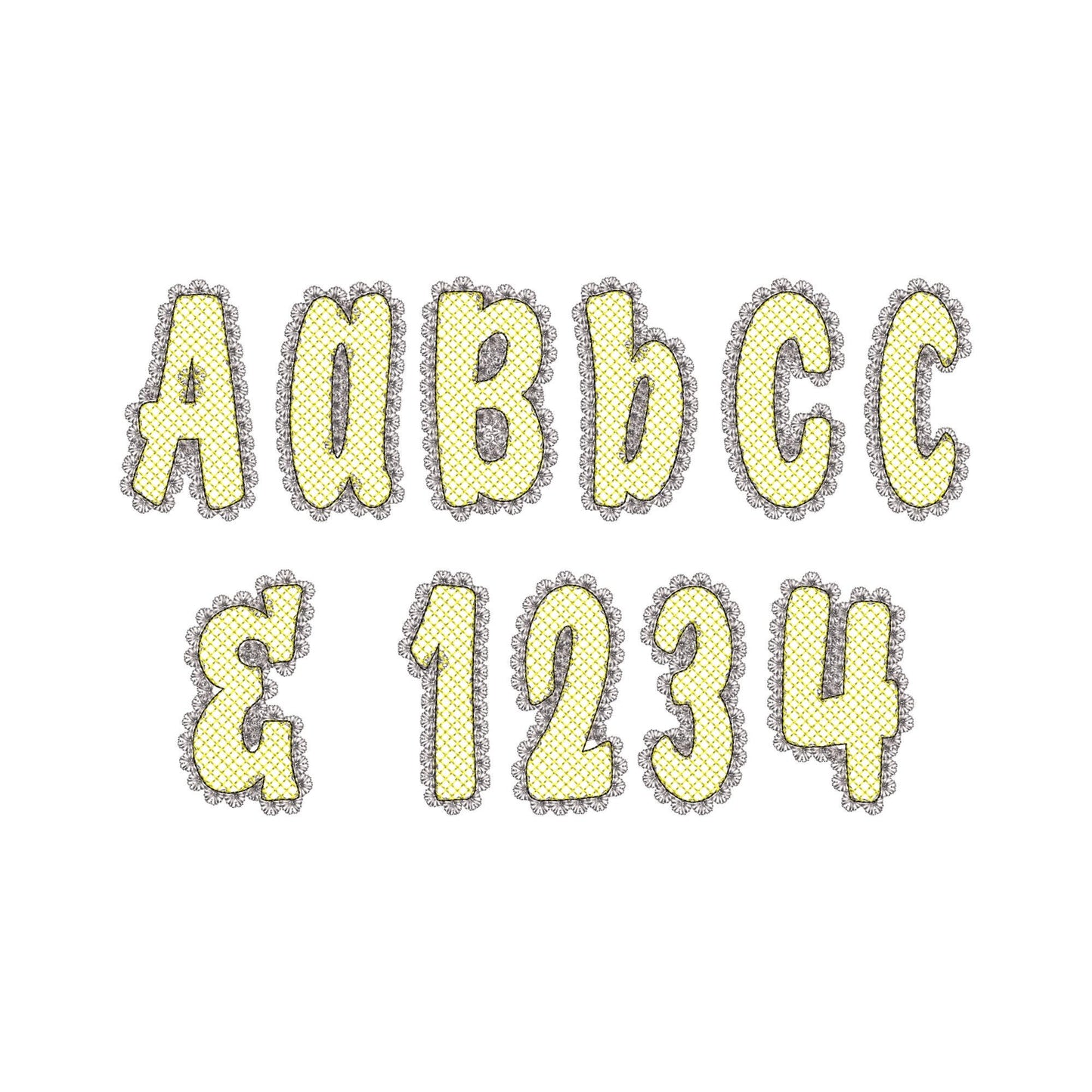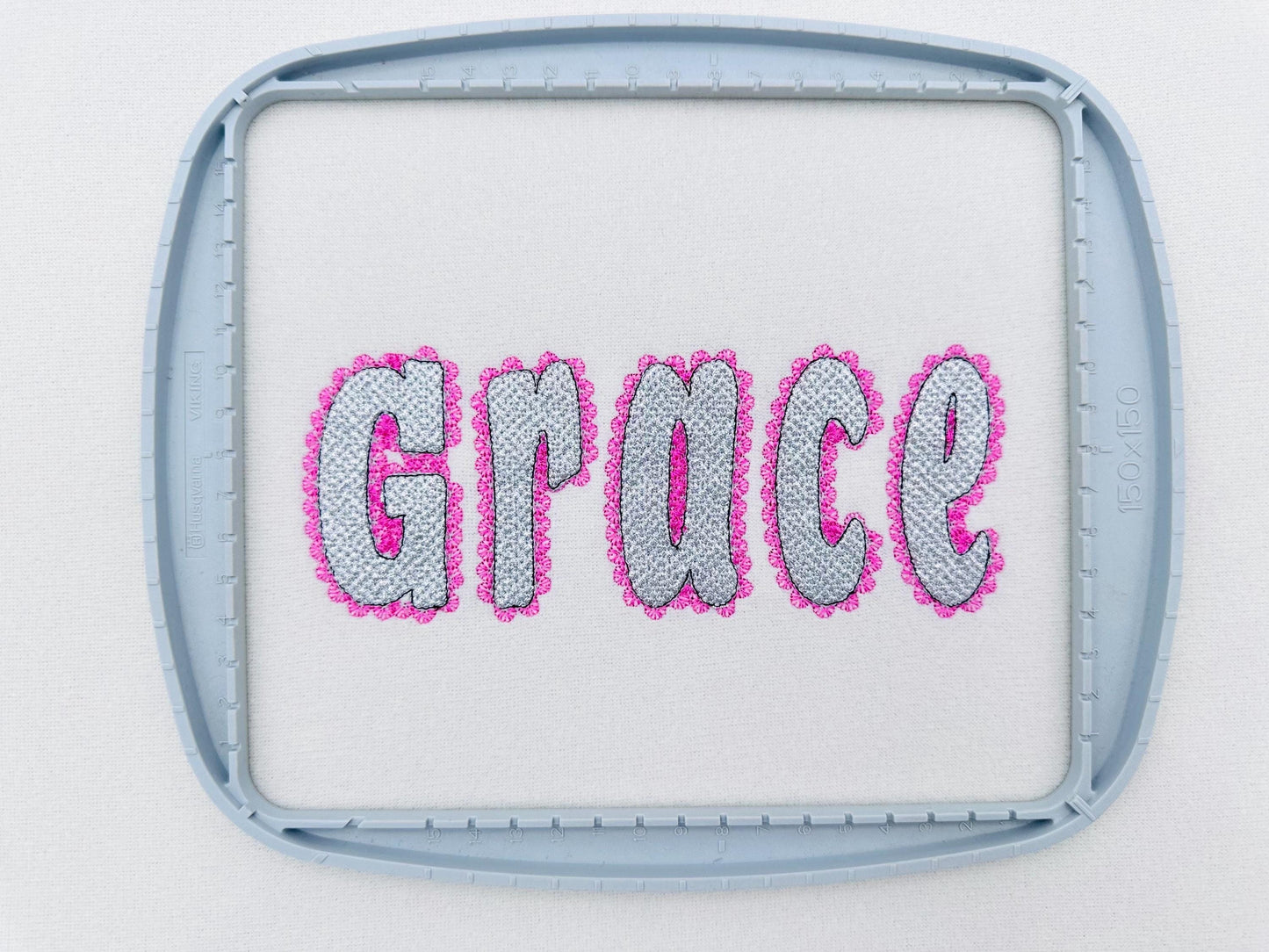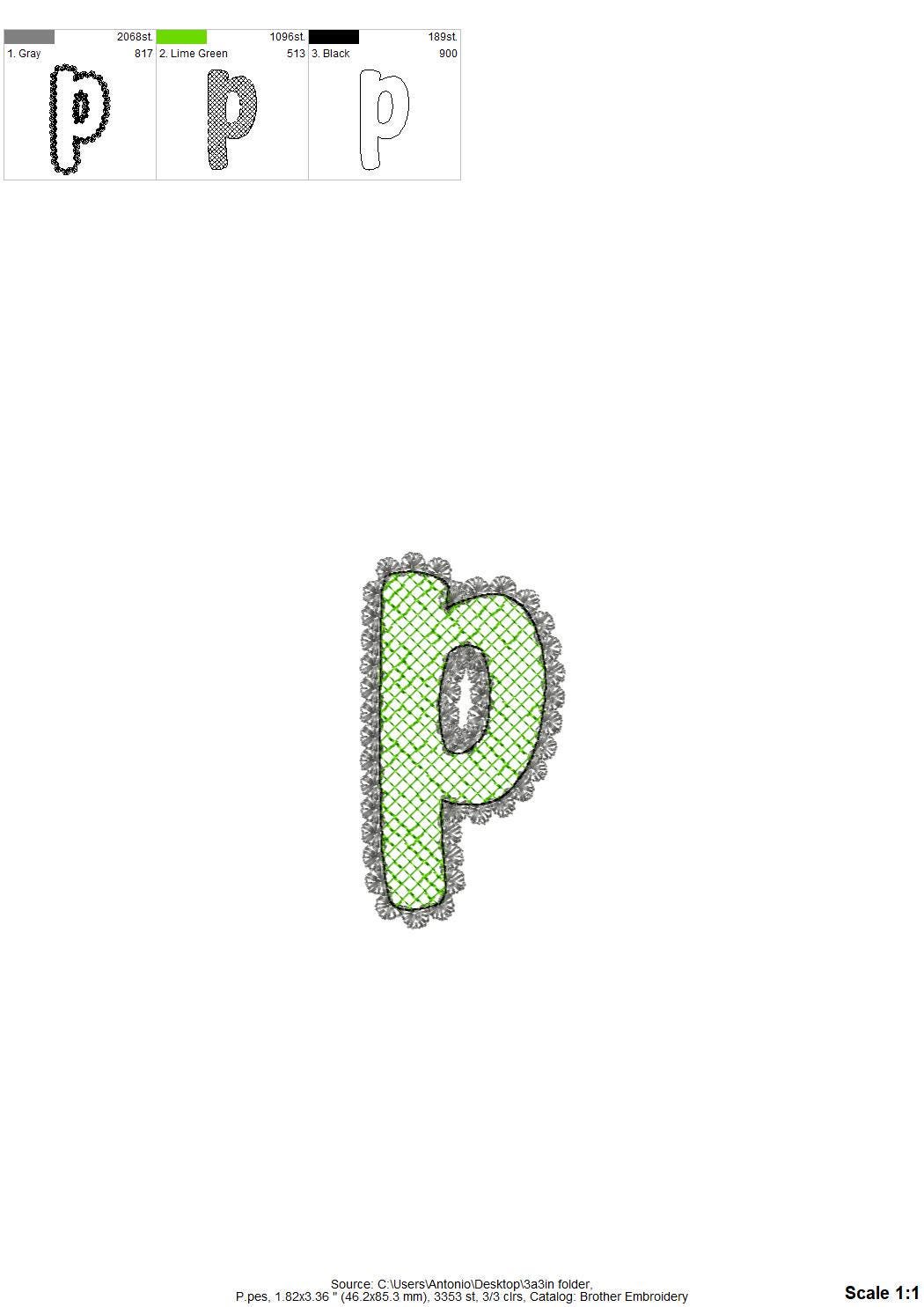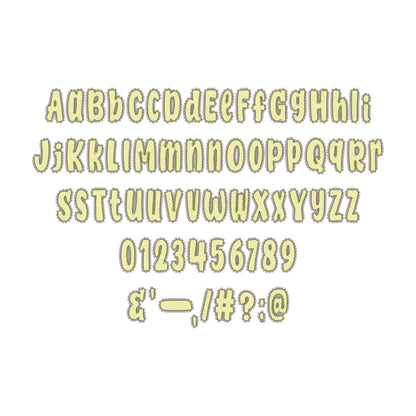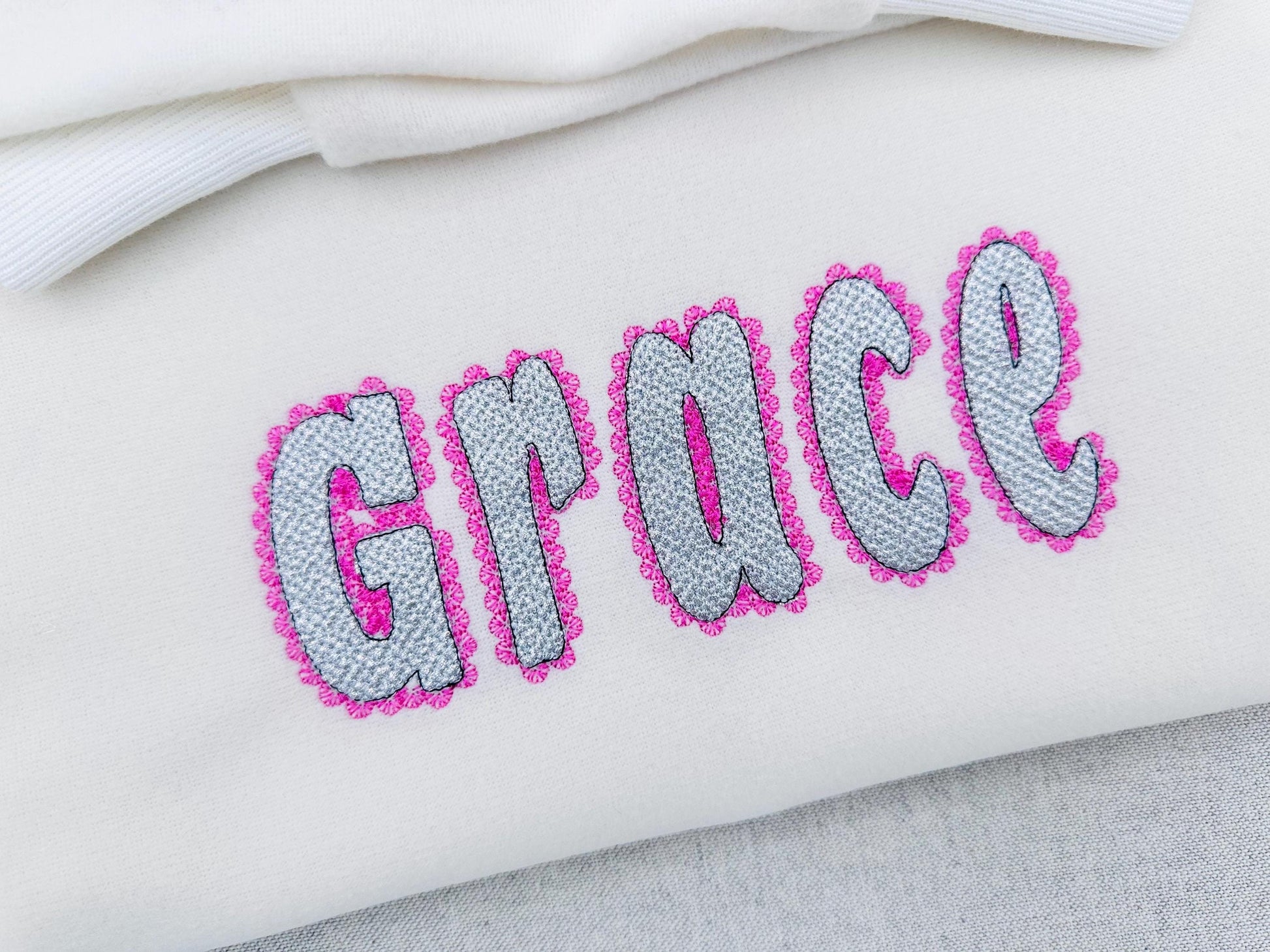
Glitter Twinkle Lace Edge Font
Or click to open the linkA sparkly glitter vinyl applique font with a lace edge. Pretty for girls' names, monograms and party shirts.
The letters come in four sizes: 2.3, 2.7, 3.3 and 4 inches. Glitter heat transfer vinyl fills each letter and the lace edge is stitched around it, so the fabric shows through. Press or iron the vinyl after stitching; the finished design is wash-safe. Includes uppercase and lowercase letters A to Z, numbers 0 to 9 and punctuation.
- Lace edge glitter vinyl applique font